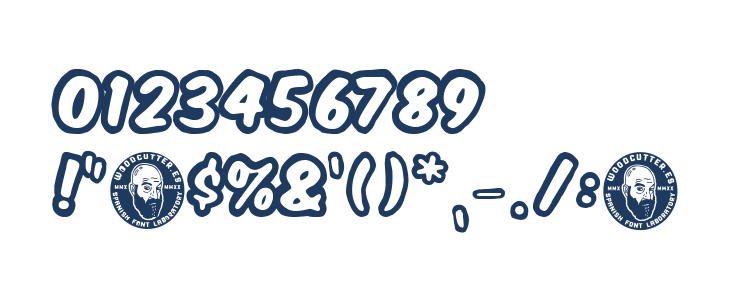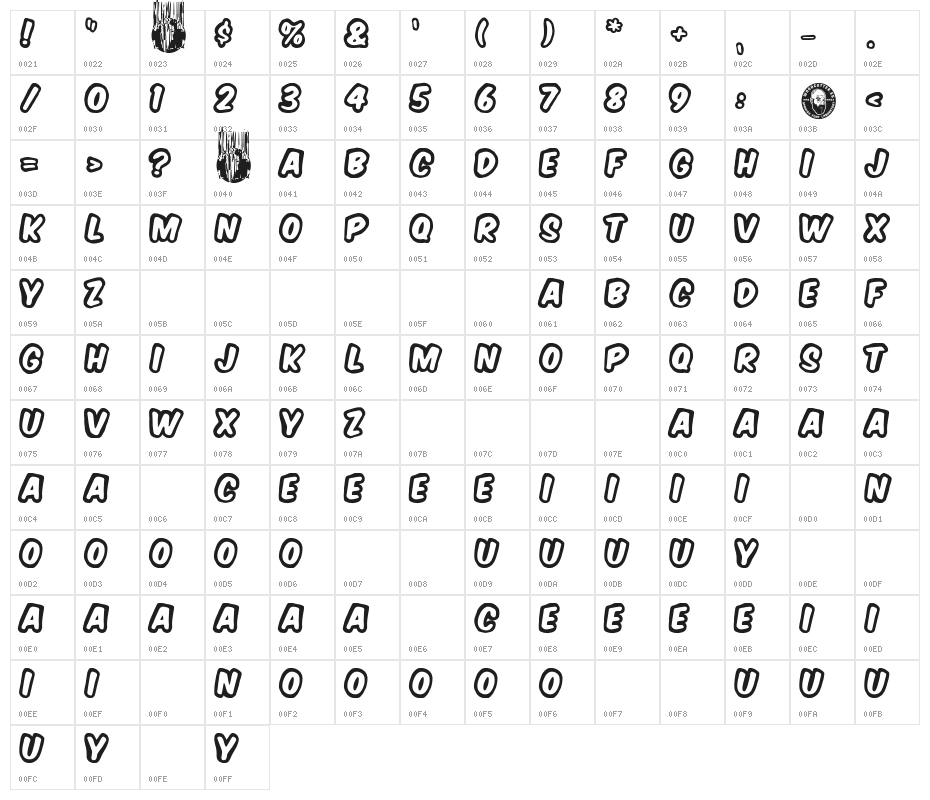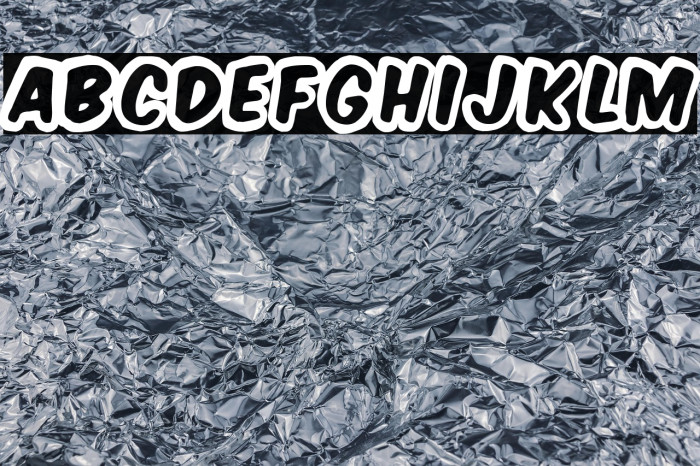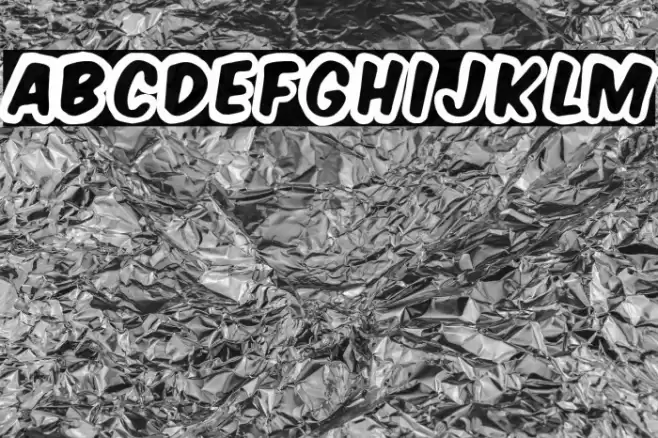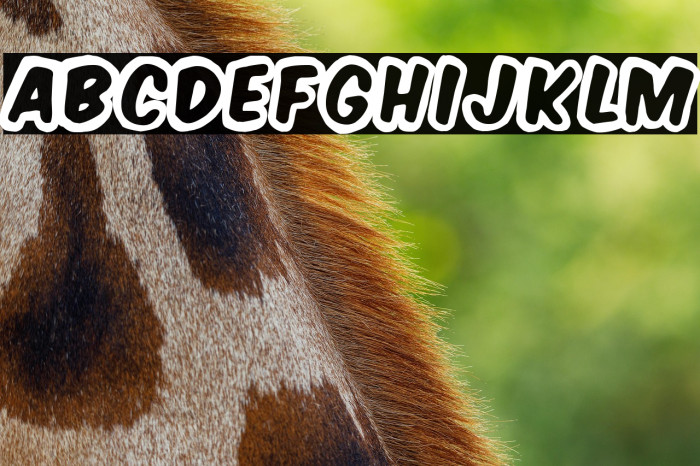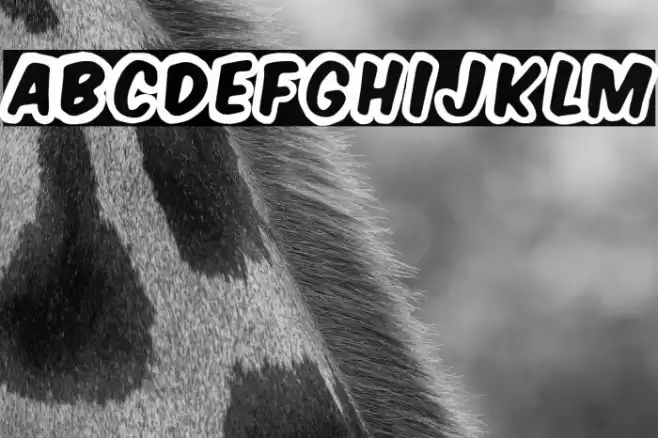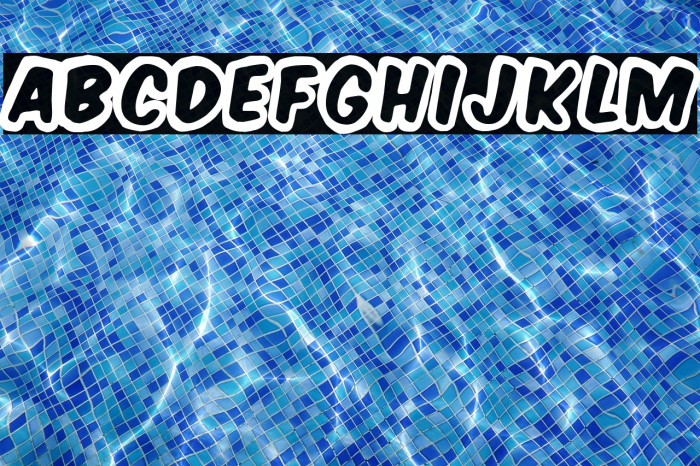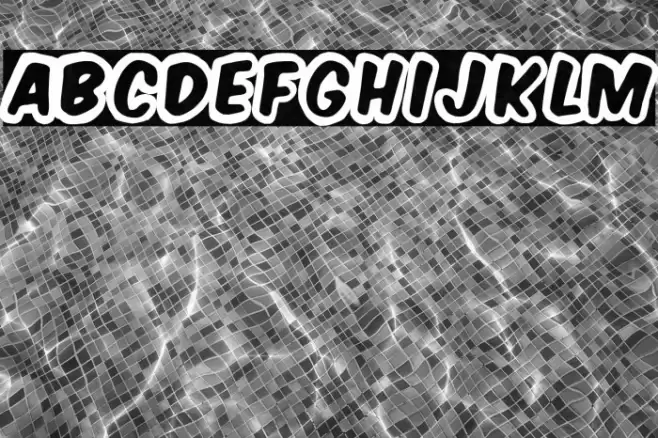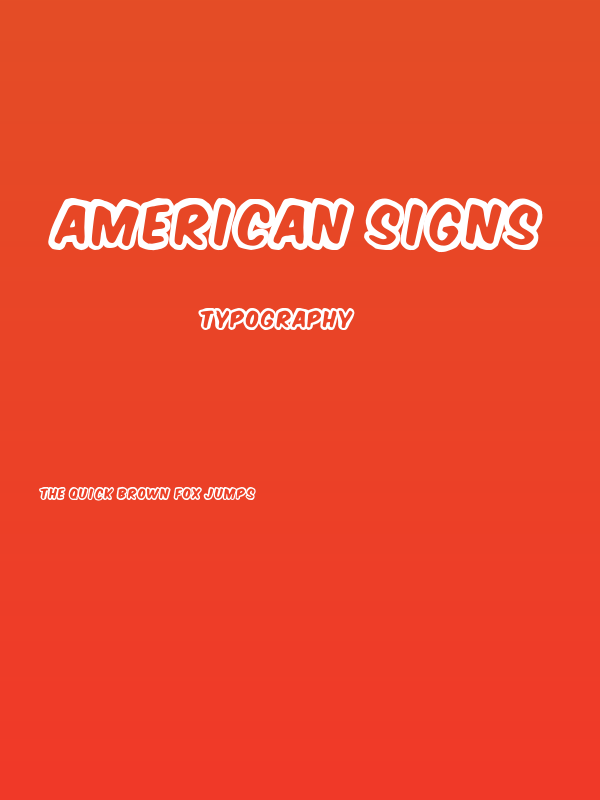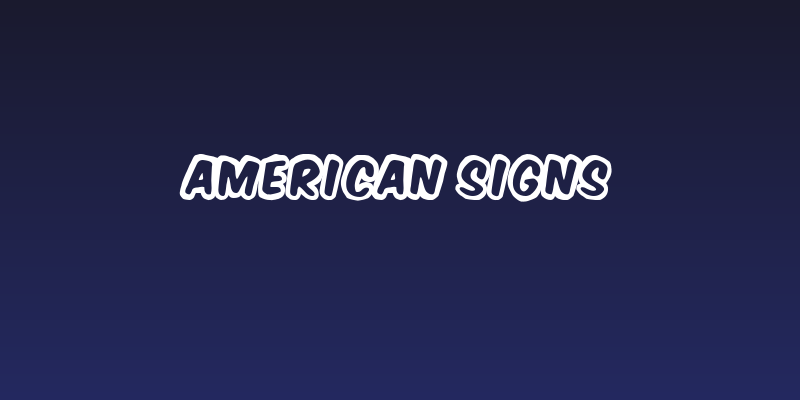
American Signs Font
American Signs Description
This font features bold, rounded characters with a playful and dynamic style. The letters are outlined, giving them a three-dimensional effect that stands out. The uppercase and lowercase letters maintain a consistent style, with smooth curves and a slightly condensed form. The numbers and special characters follow the same design principles, ensuring uniformity across all elements. This font's energetic and lively appearance makes it ideal for projects that require a fun and engaging visual impact.
| Overall Style | Playful, Energetic |
| Proposed Projects | Ideal for children's books, playful branding, event posters, and merchandise designs. |